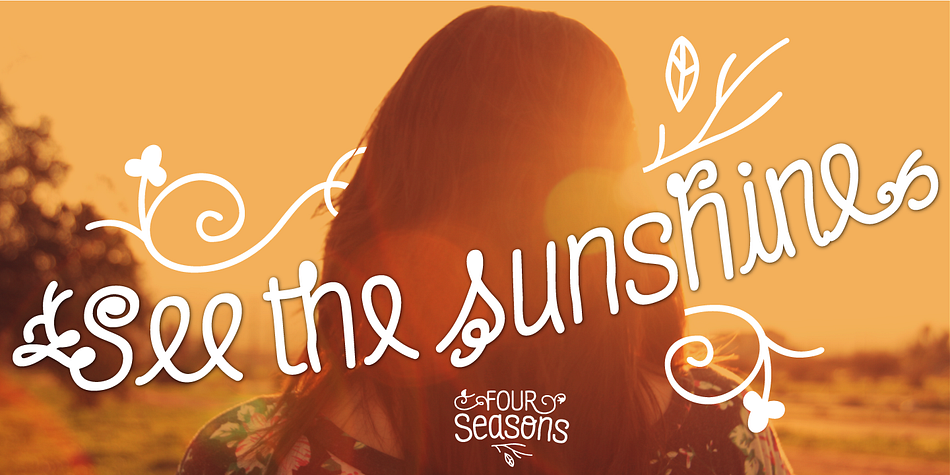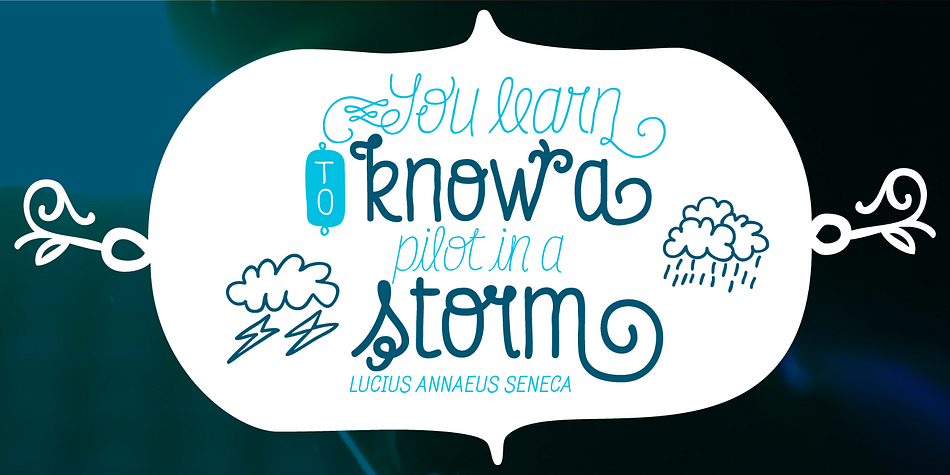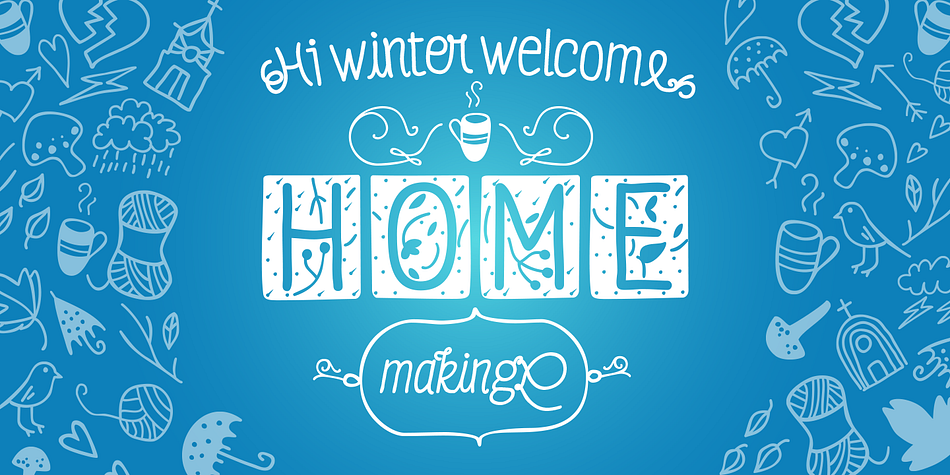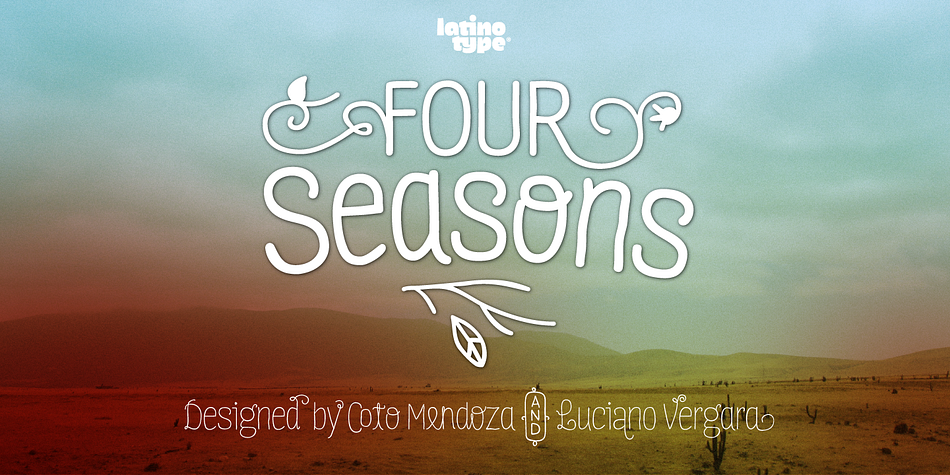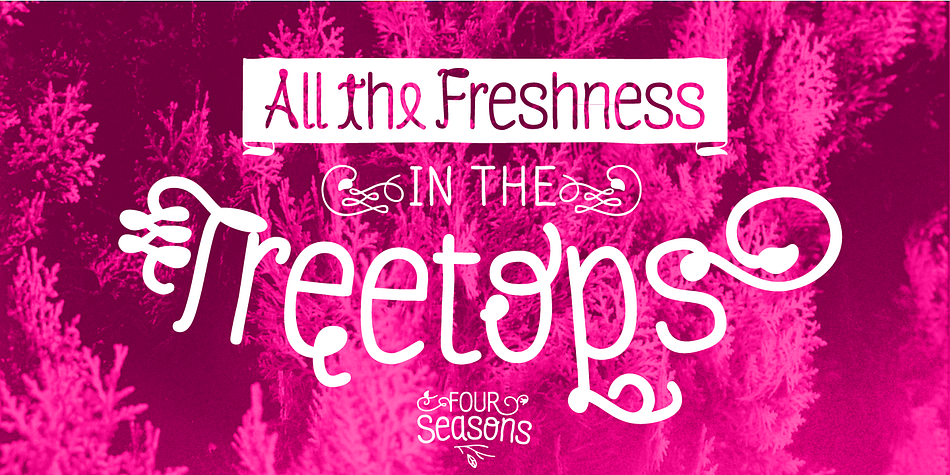
Four Seasons Complete is a dingbat and hand display font collection published by Latinotype.
Four Seasons is a display handwritten typeface inspired by nature and its four seasons. The font was designed by Coto Mendoza and Luciano Vergara during the winter of 2010 and 2013.
Four Seasons’ real handmade stroke allows for an authentic lettering and makes the font perfect for photography and illustration composition. Four Seasons comes with an extensive character set and includes OpenType features such as titlings, endings, initials, swashes, ligatures and alternates plus a sweet set of ornaments, dingbats, and words, all inspired by branches, leaves, and flowers.